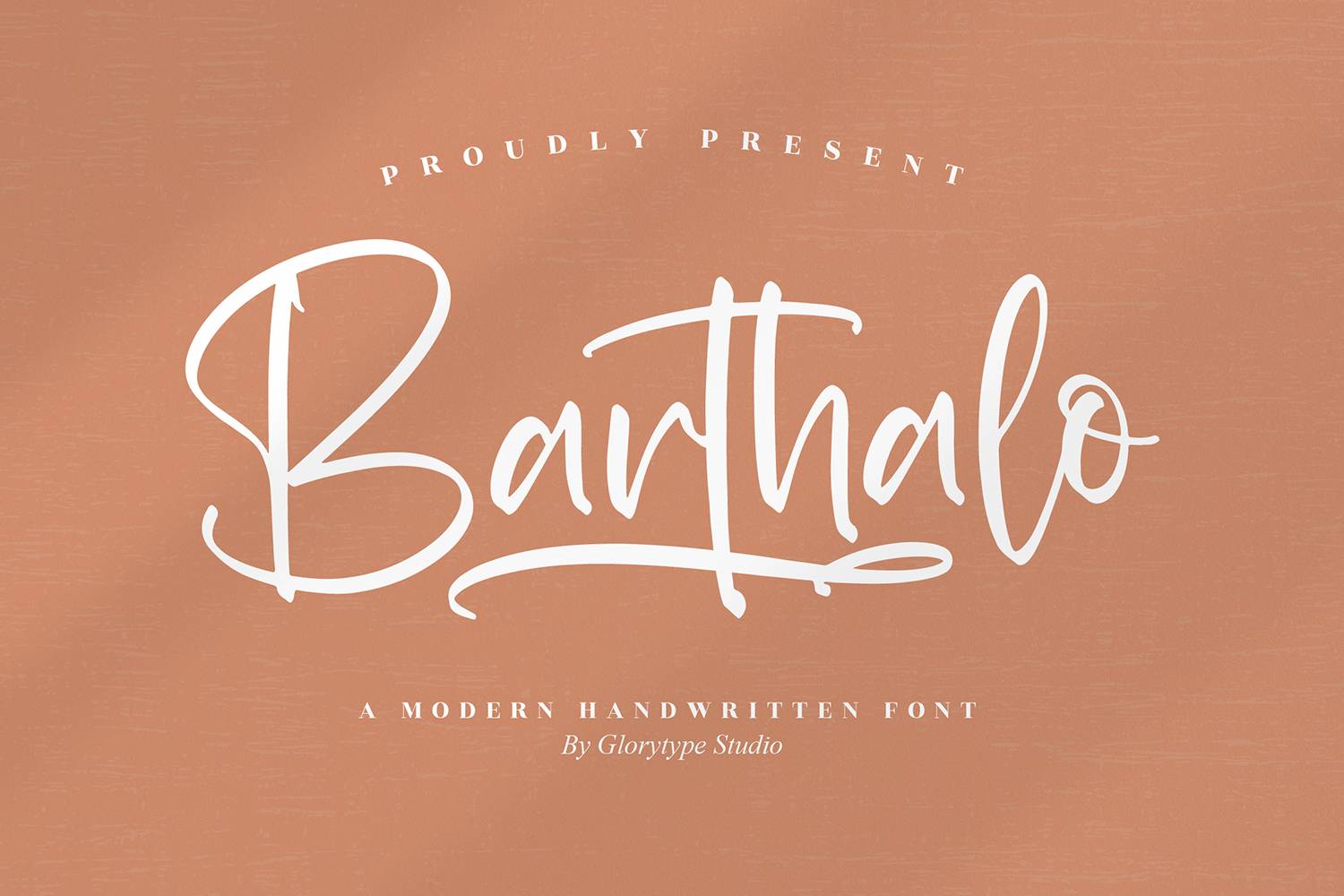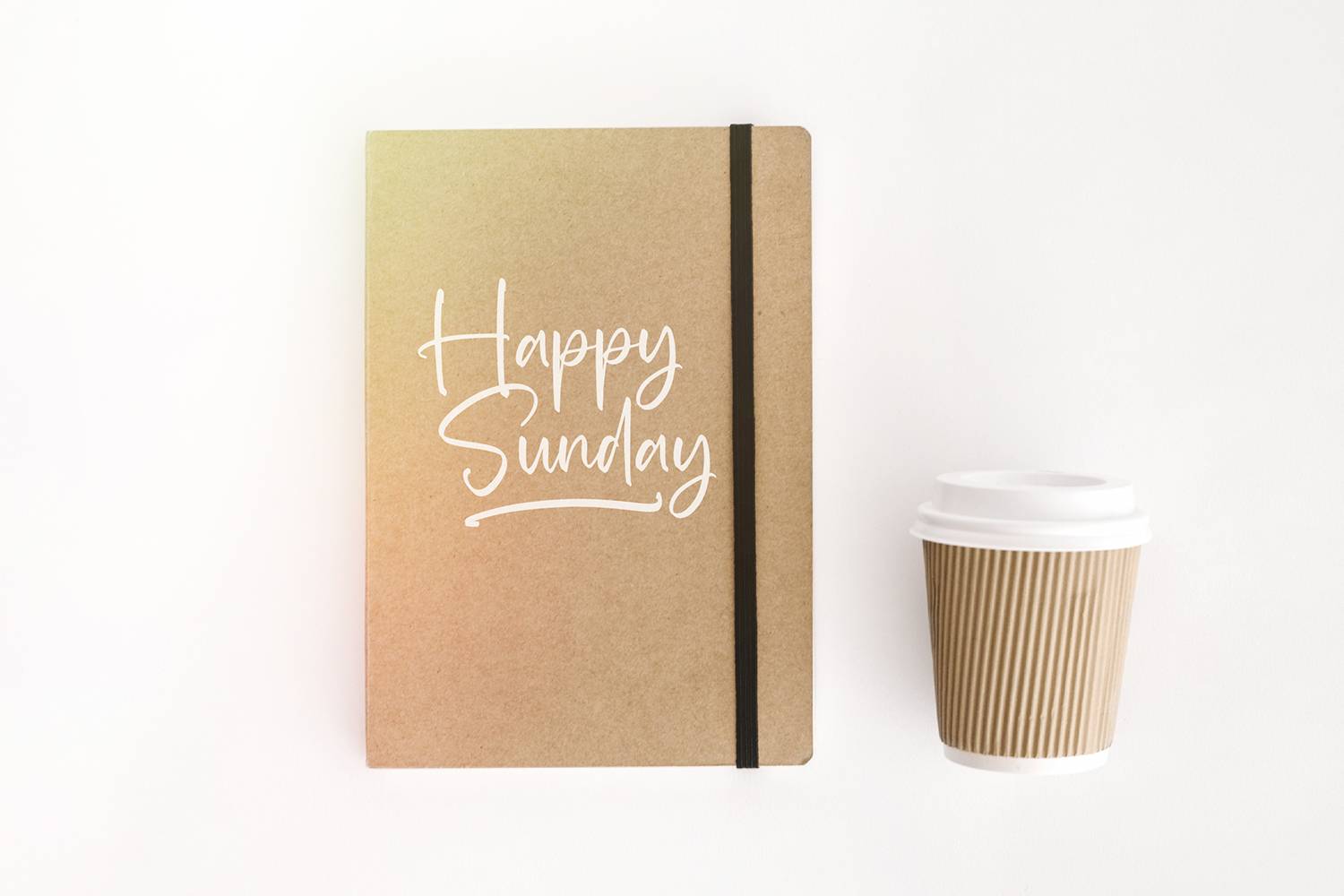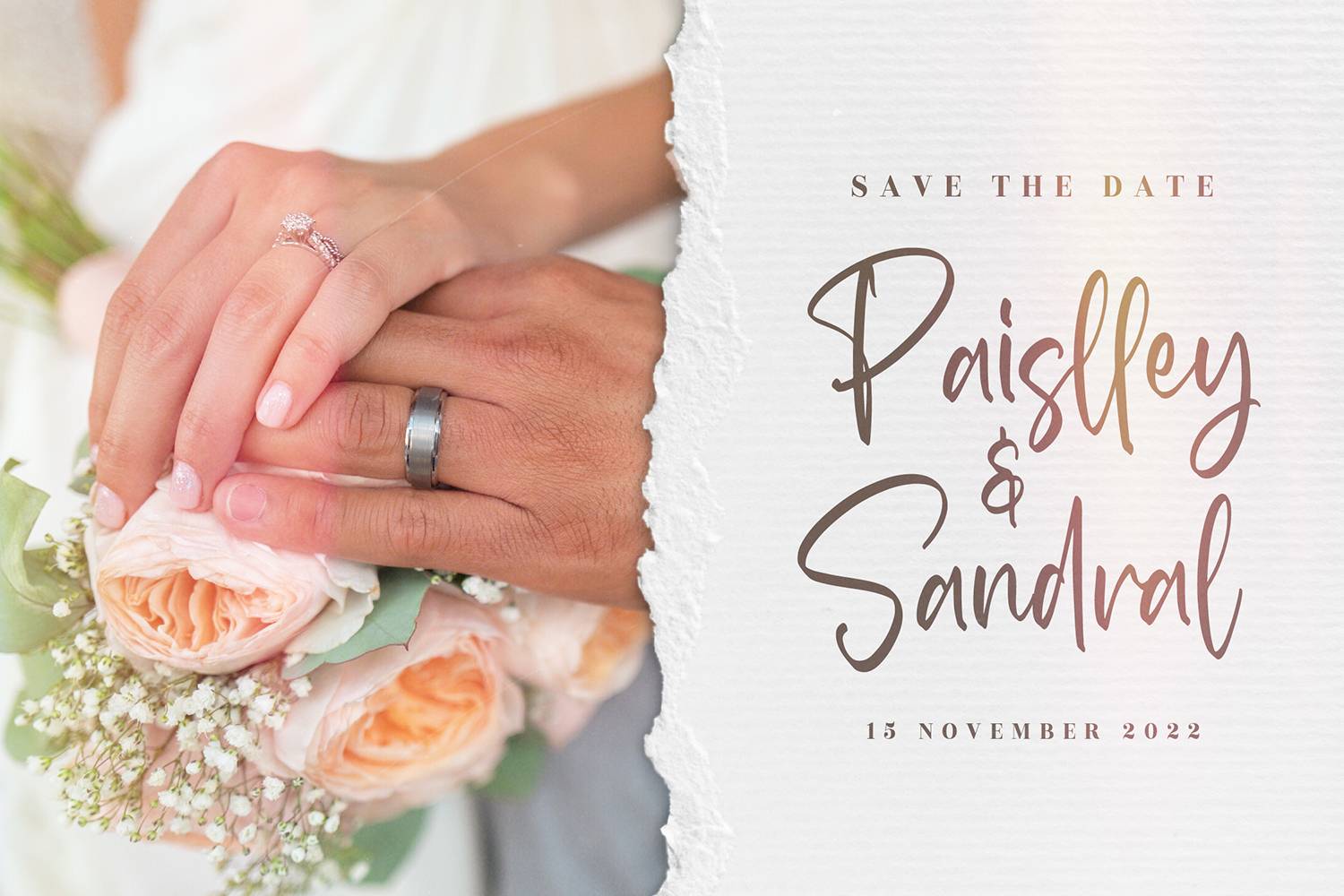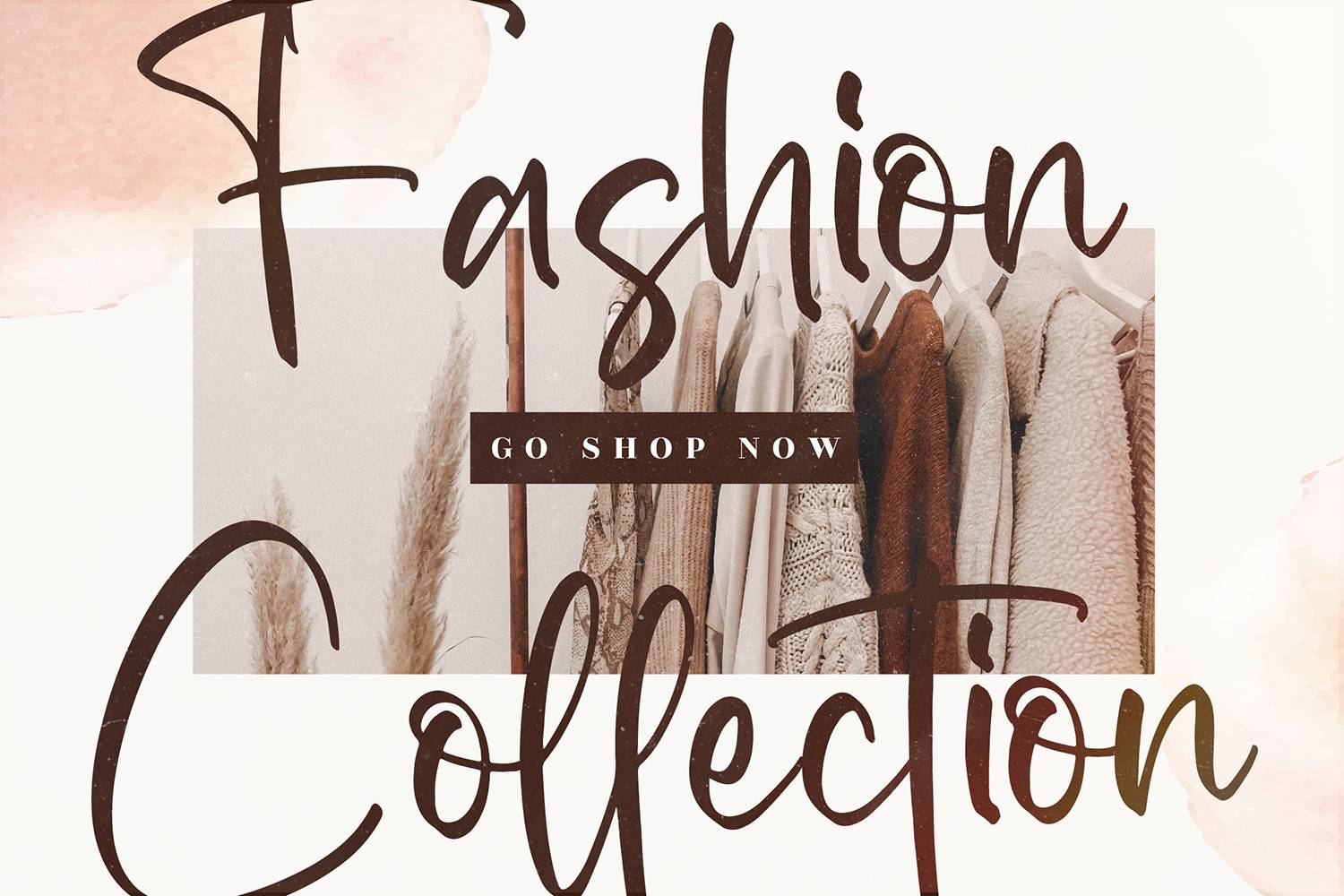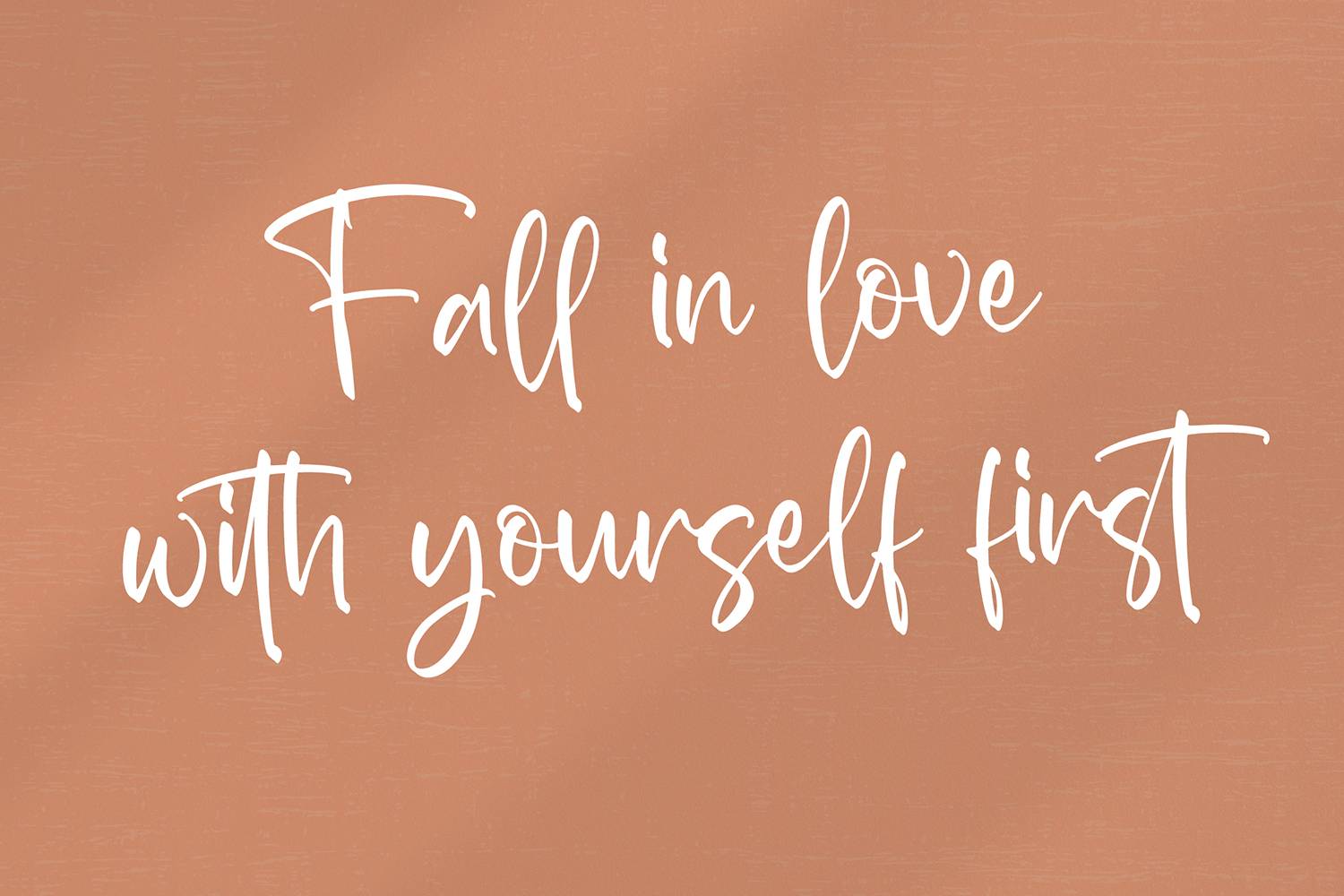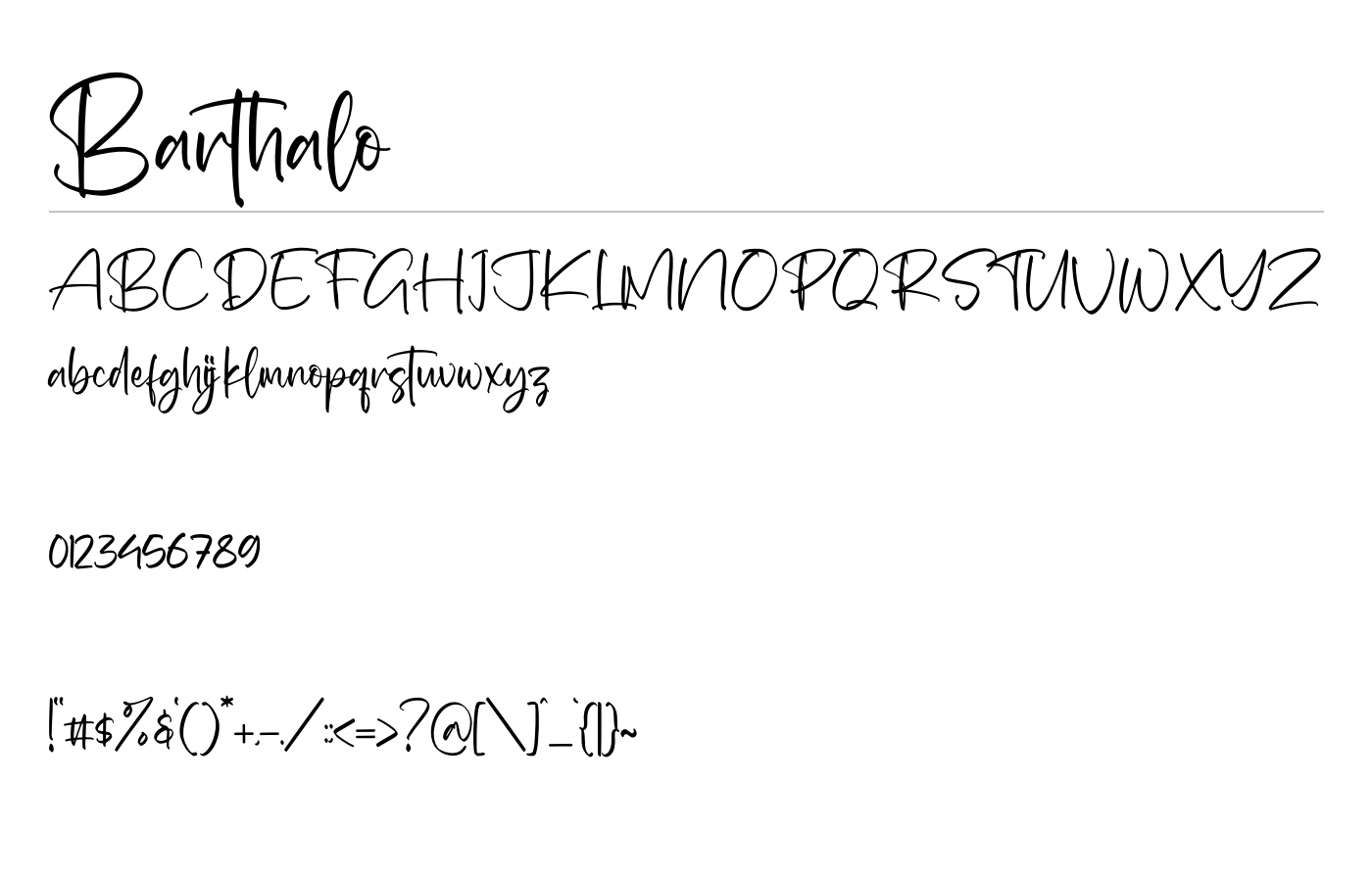
Barthalo is a playful and elegant handwritten script font featuring tall, slender letterforms with a casual yet refined touch. Its light weight and natural flow make it perfect for creative branding, invitations, and stylish editorial use where a personal and artistic feel is desired. This font adds a unique, charming vibe to any design, balancing legibility with expressive, hand-drawn character.
Barthalo Font
About Barthalo Font